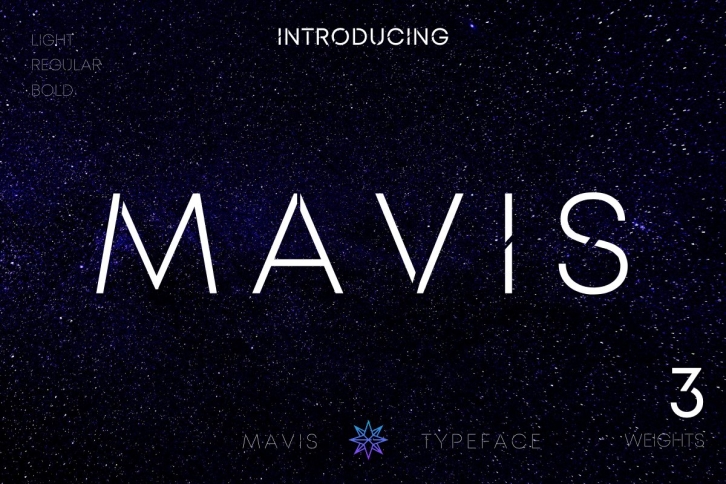
MAVIS SANS is a trendy and unique font with an authentic style. It was designed by NEWFLIX.Bro and it's a great choice for creative people who need such a font. It was released on June 4, 2020 and the file size is 1.6 MB. MAVIS SANS will add an organic vibe to any design idea!